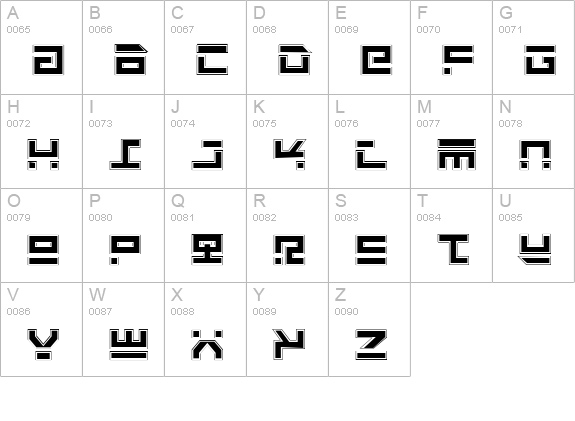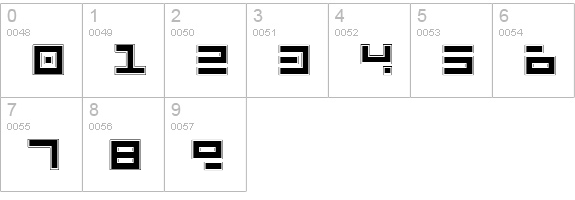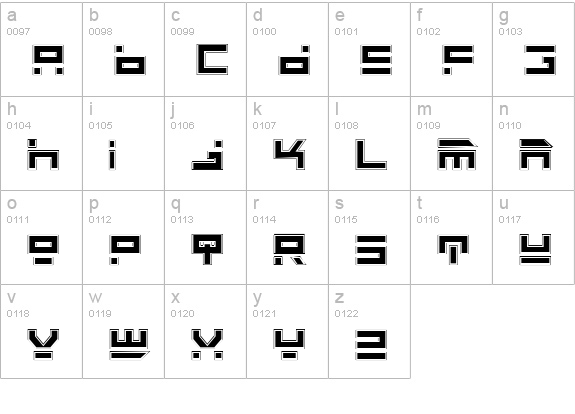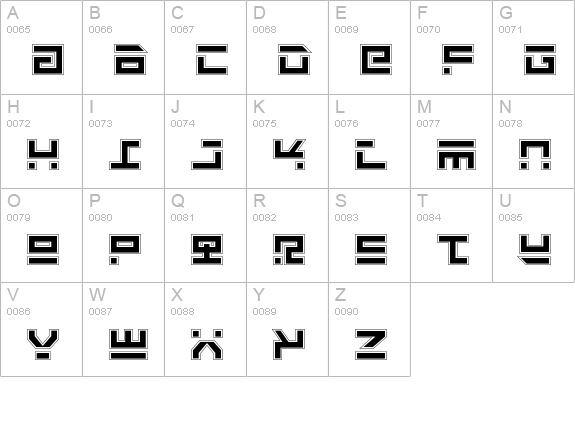
Rocket Type Pro font is a sleek and modern typeface that exudes a sense of energy and dynamism. With its sharp lines and bold design, this font is perfect for making a statement in any project. Whether you're designing a logo, creating a poster, or crafting a website, Rocket Type Pro will bring a touch of sophistication and style to your work. What sets Rocket Type Pro apart is not only its striking appearance but also the fact that it is available for free download at FontsMarket.com. This means that you can easily access this premium font without having to break the bank. So why settle for ordinary when you can elevate your designs with Rocket Type Pro? Download it today and take your projects to new heights.